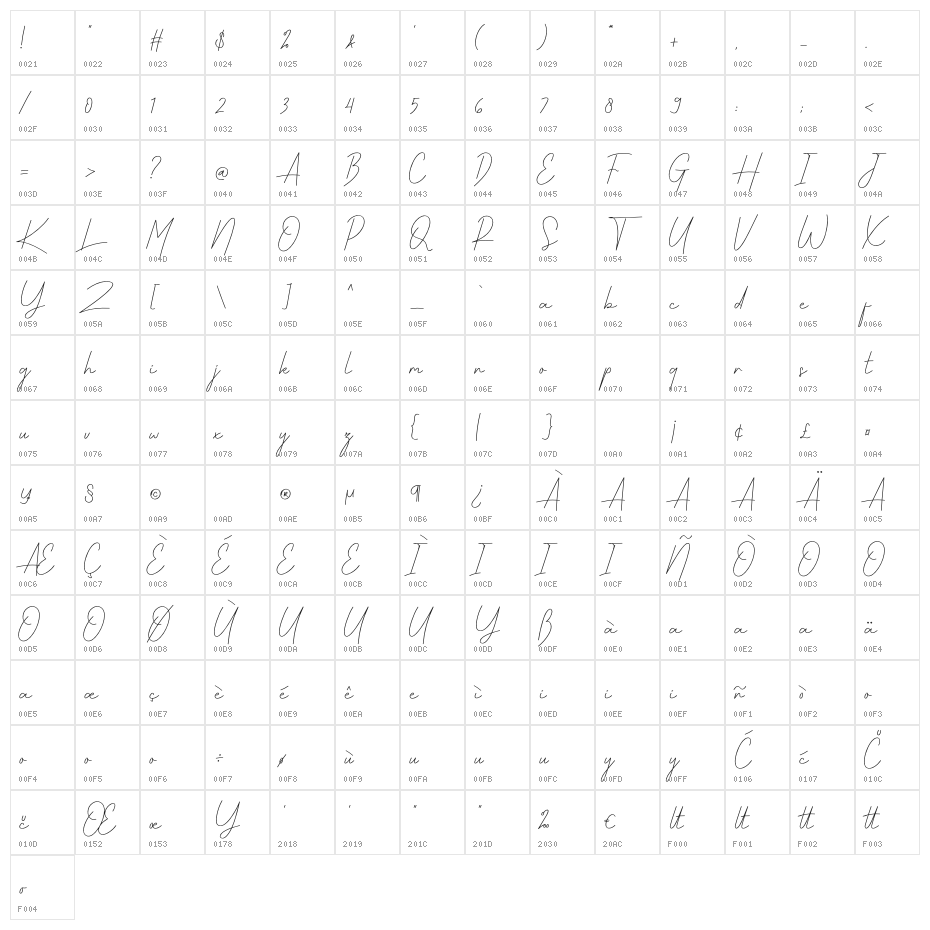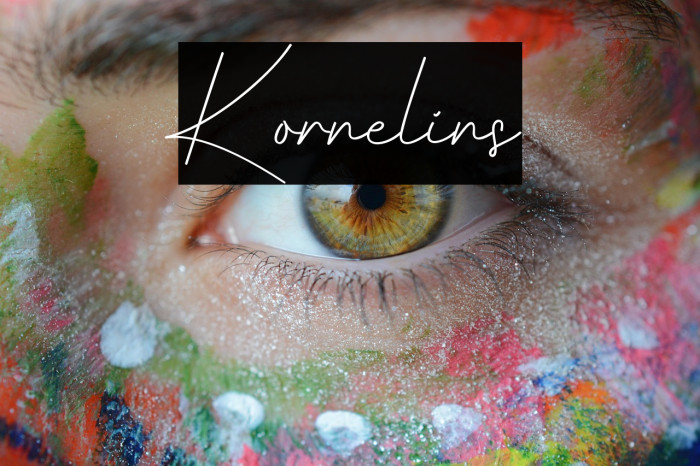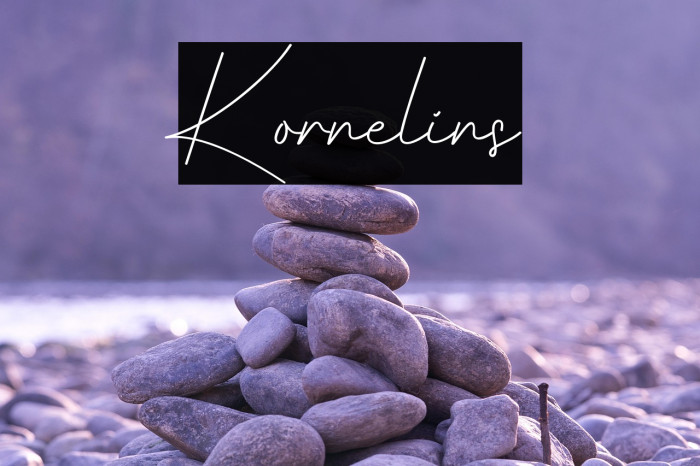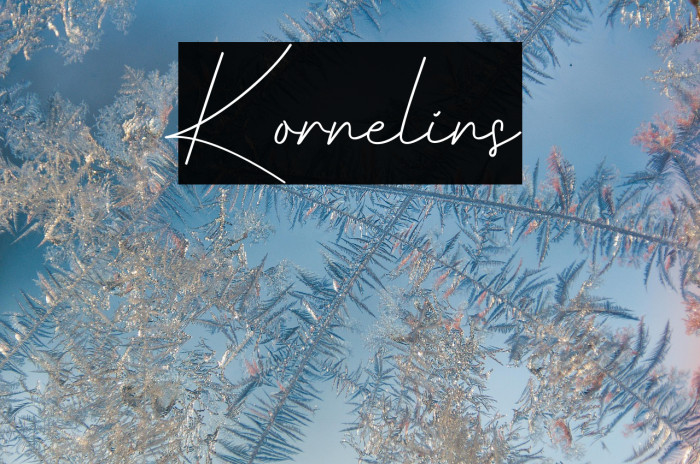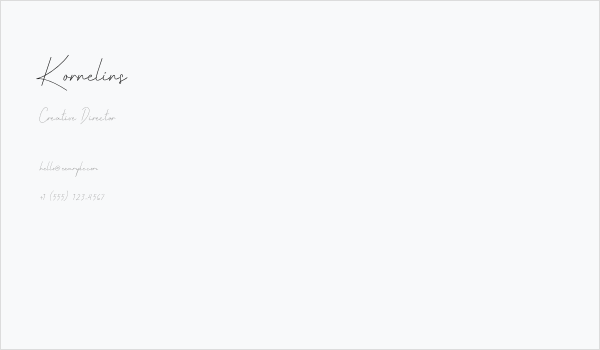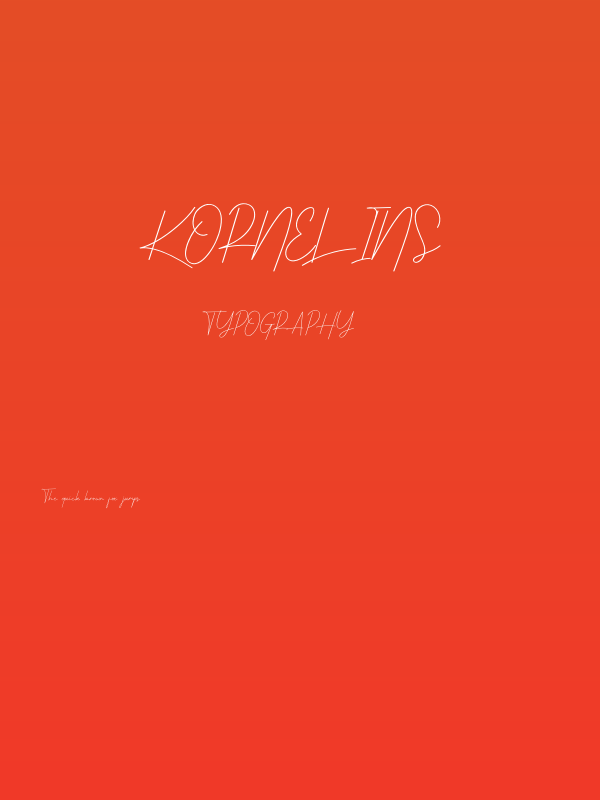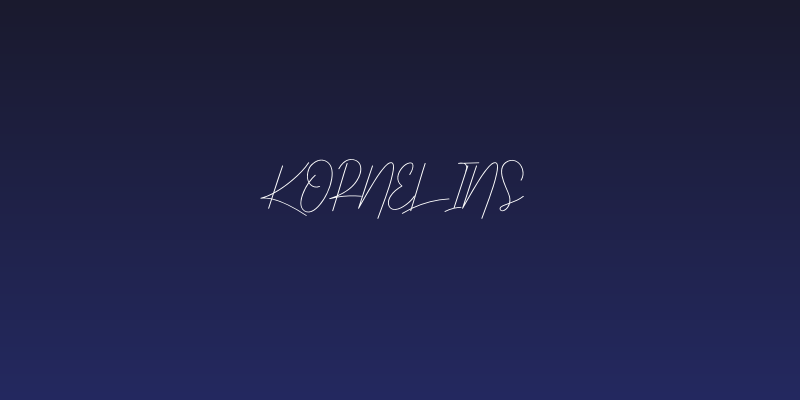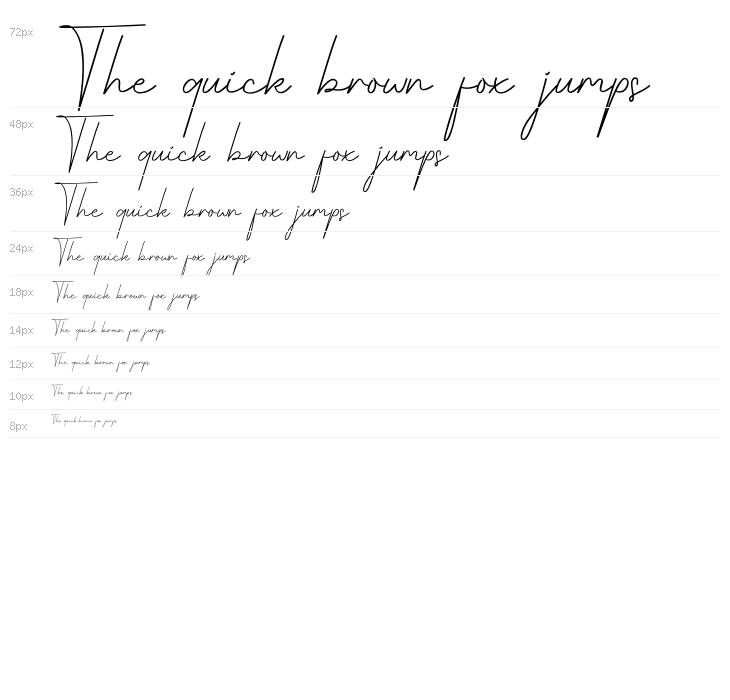
Kornelins Font
Kornelins Description
A flowing, elegant handwritten script with a casual and modern feel. The strokes are thin and slightly irregular, giving it a personal touch.
| Use Case | Logos, Invitations, Greeting cards |
| Proposed Projects | Invitations, greeting cards, personal branding. |